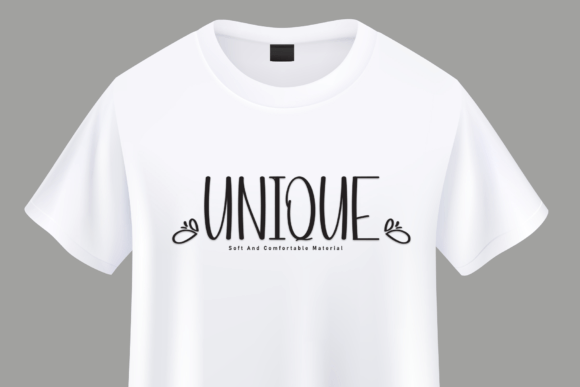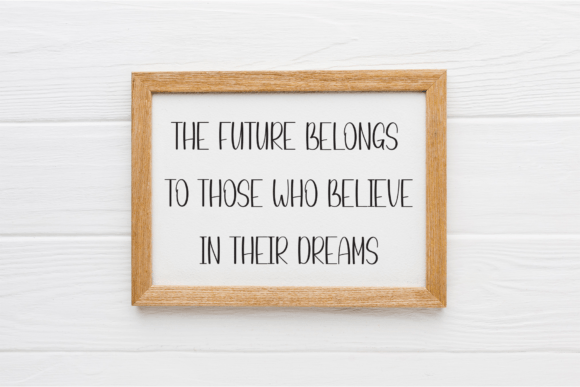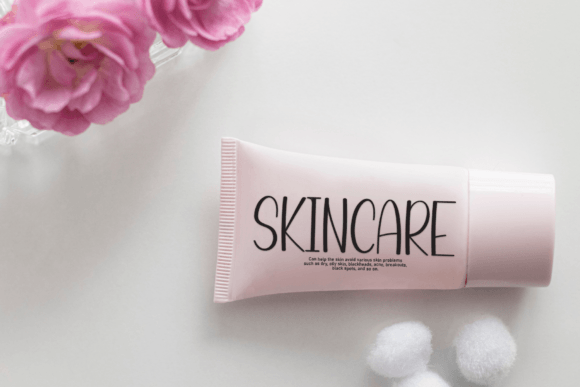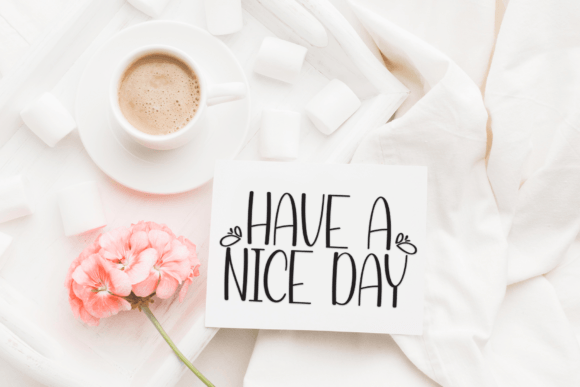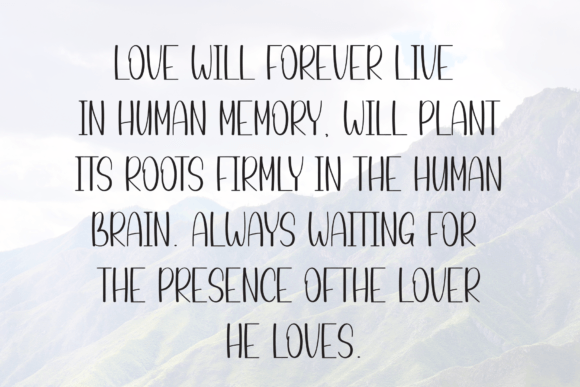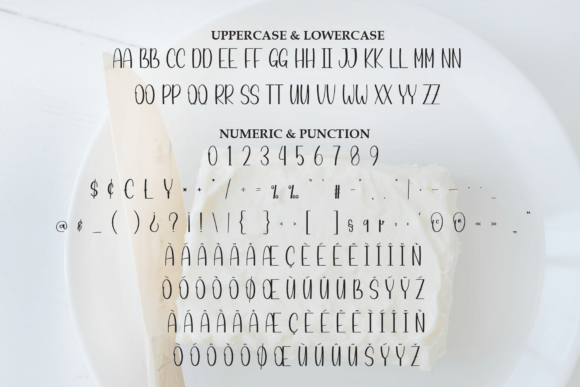
A Delicious Twist on Typography: Discovering the Butter Lemonade Font
Have you ever stumbled upon a font that makes you feel like you’re sipping a refreshing glass of lemonade on a warm summer day? That’s exactly what I experienced when I first laid eyes on the Butter Lemonade Font. Its sweet and friendly sans-serif design instantly captured my attention, and I knew I had to learn more about this charming typeface.
Butter Lemonade Font is a versatile and adorable font perfect for adding a fresh touch to your designs. Whether you’re crafting wedding invitations, creating birthday cards, or simply looking for a unique way to express yourself, this font is sure to bring a smile to your face. As a designer, you’ll appreciate its value in elevating your work with a dash of whimsy and personality.
Butter Lemonade Font Key Features
- Size: The font family includes 6 styles: Thin, Light, Regular, Medium, Bold, and Black, each with its unique characteristics.
- Unique Characteristics: The Butter Lemonade Font features a unique blend of modern and vintage elements, with a distinctive lemonade-inspired aesthetic.
- Language Support: The font supports a wide range of languages, including Latin, Greek, and Cyrillic scripts.
- Kerning and Ligatures: The font includes advanced kerning and ligature pairs, ensuring smooth text rendering and professional-looking typography.
Designer Review: Butter Lemonade Font
Overall, I think the Butter Lemonade font is a lovely, whimsical addition to any design project. ✨ The font’s playful curves and rounded edges evoke a sense of warmth and approachability, making it perfect for branding and packaging design.
- The font’s fluidity and legibility are standouts, making it a great choice for body text.
- The italic and bold variations add depth and versatility to the font.
- The font’s unique personality shines through in its quirky, hand-drawn feel.
- The font may not be the best choice for formal or corporate designs, as its playful nature may come across as unprofessional.
- The font’s irregularities can sometimes make it difficult to read at small font sizes.
- The font’s complexity may make it challenging to pair with other fonts.
Overall, I think the Butter Lemonade font is a great choice for designers looking to add a touch of personality to their projects. With its unique charm and versatility, it’s sure to be a hit with clients and audiences alike.
The Butter Lemonade font is ideal for creating visually appealing designs for various purposes, such as:
– Social media posts and advertisements
– Food and beverage branding
– Stationery and invitation design
– Creative and artistic projects